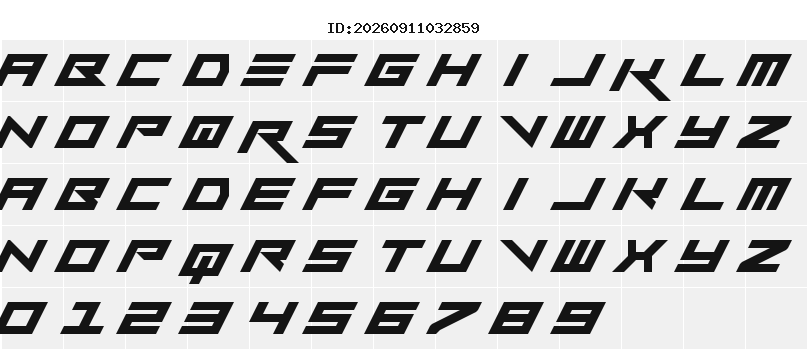
• Font Name: Vermin Vibes Slant
• Full Font Name: Vermin Vibes Slant Regular
• Designer: Andrew McCluskey
• Description: ‚ÄúVermin Vibes Slant‚Äù was built with FontStruct
About Vermin Vibes Slant.ttf
Vermin Vibes Slant.ttf is a modern, elegant sans-serif font designed for ultimate readability and visual harmony. Perfect for branding, headlines, web design, and print materials.